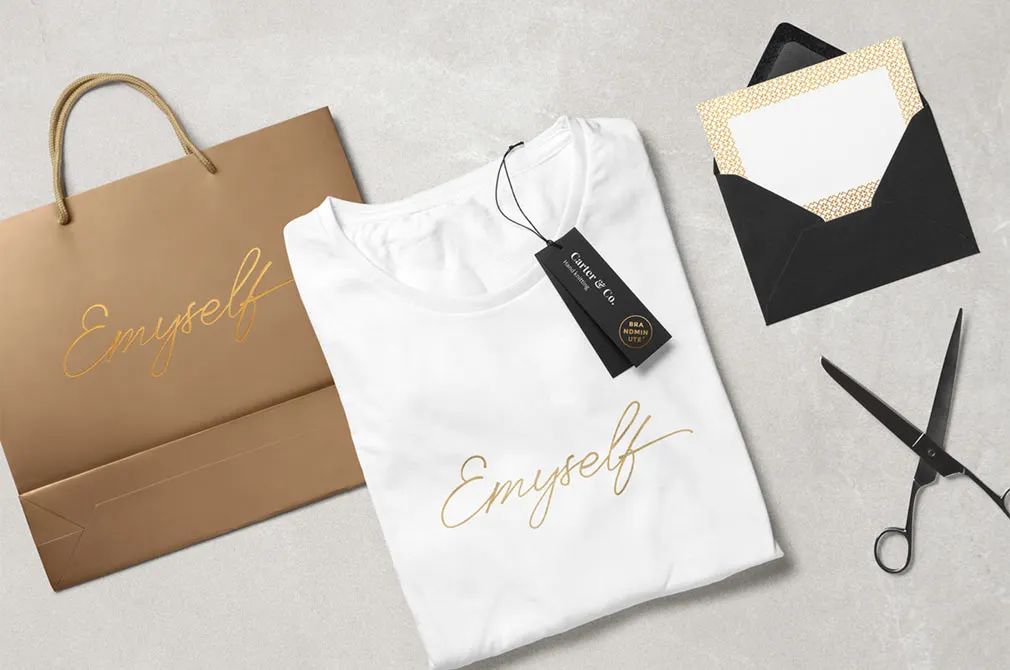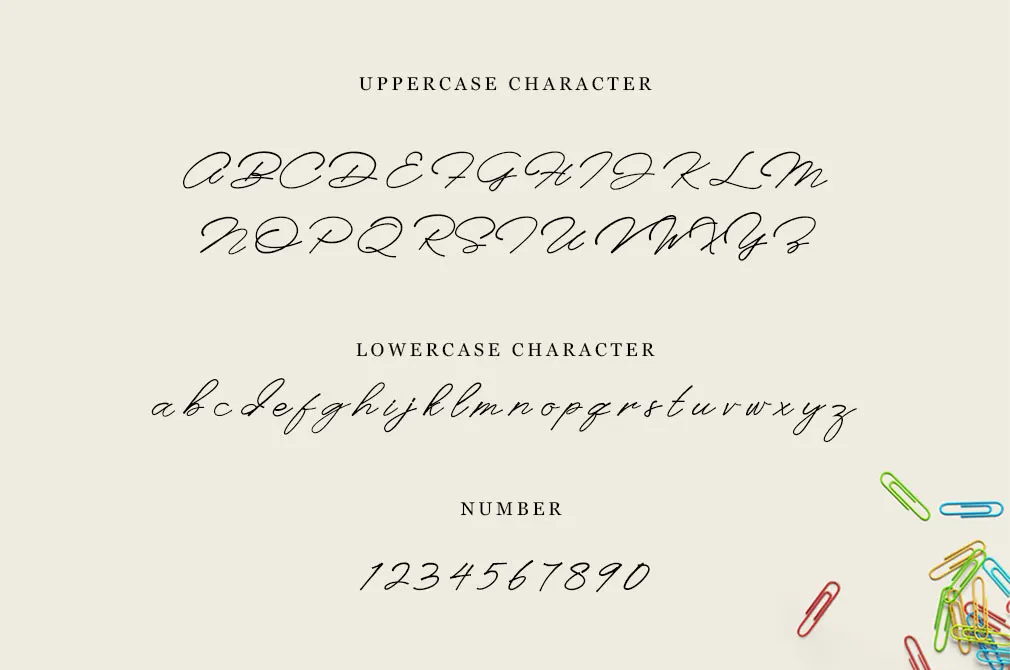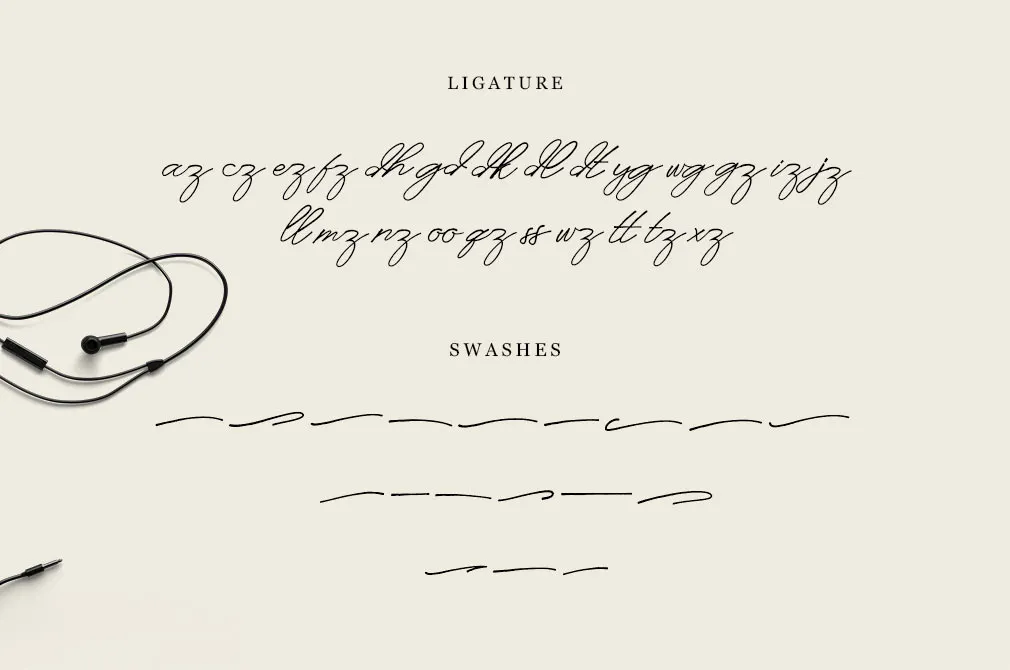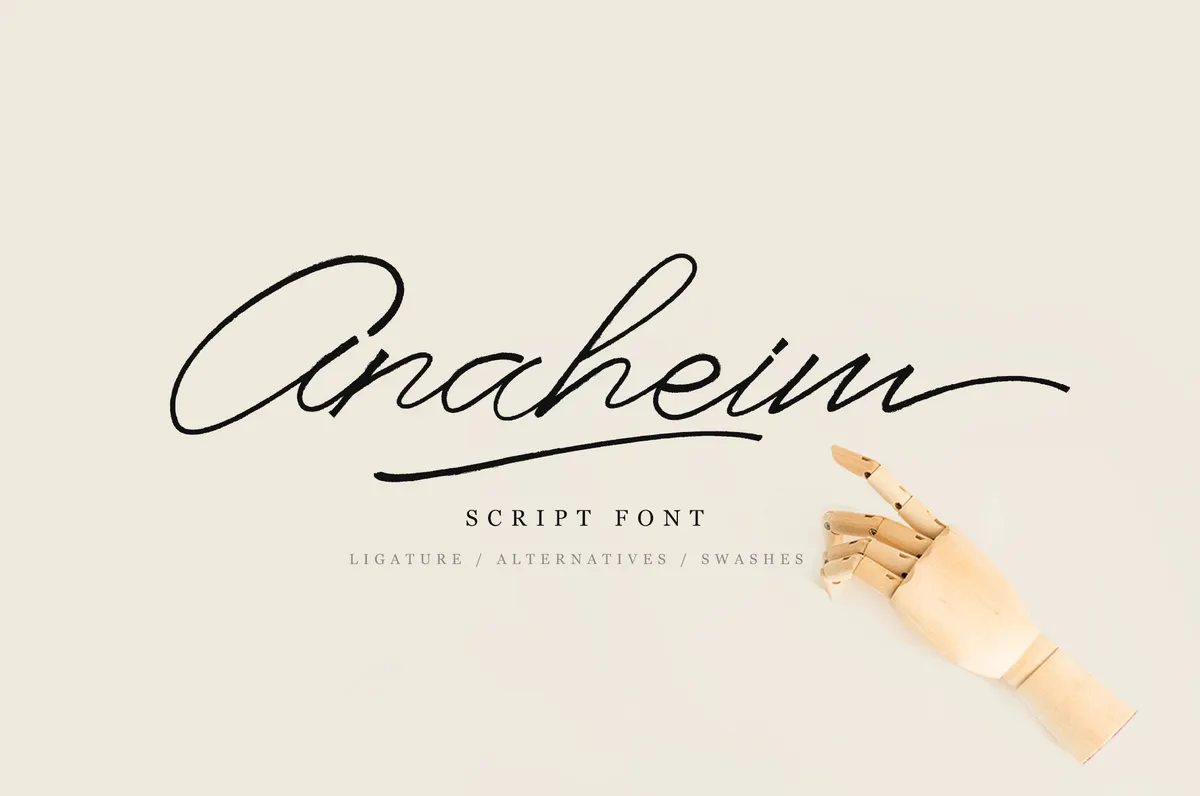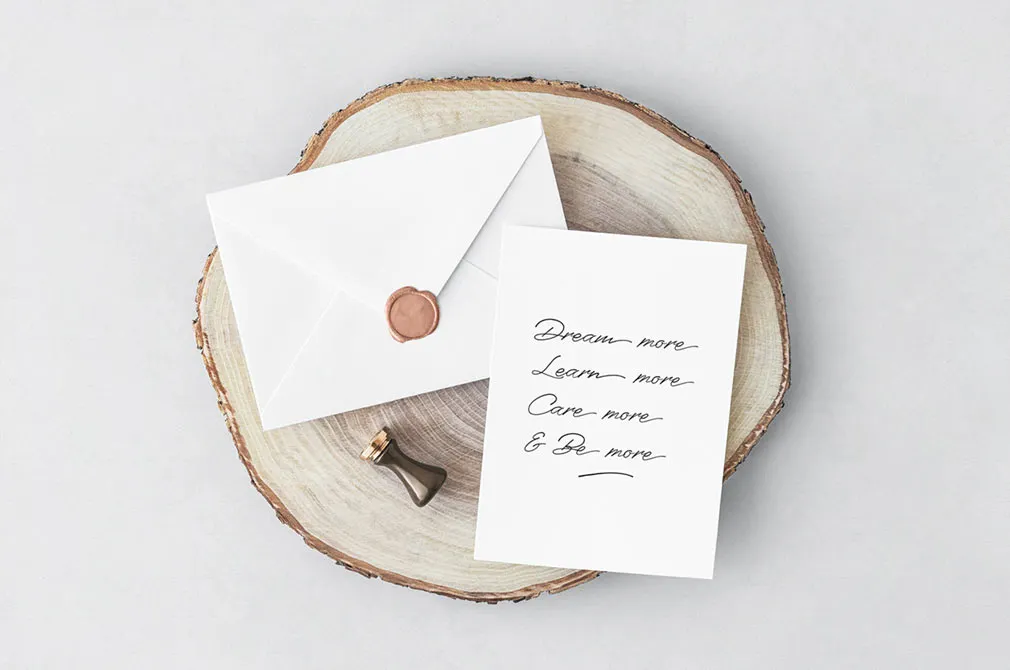
Anaheim Script Font
Complete your collection of typefaces with the free script font, breathing the highest degree of nobility and charm. Clear and thin lines were carried out to transfer your words in their best written form.
The Anaheim font is built with OpenType features and includes swashes, numbers, alternates and ligatures. Share your thoughts on any subject worldwide with multilanguage support provided. Exquisite curves remind of the 19th-century poetry, written in an aristocratic manner. They will become a perfect addition to your cards, invitations, logos and any design longings. Leave the heart-warming messages with style!